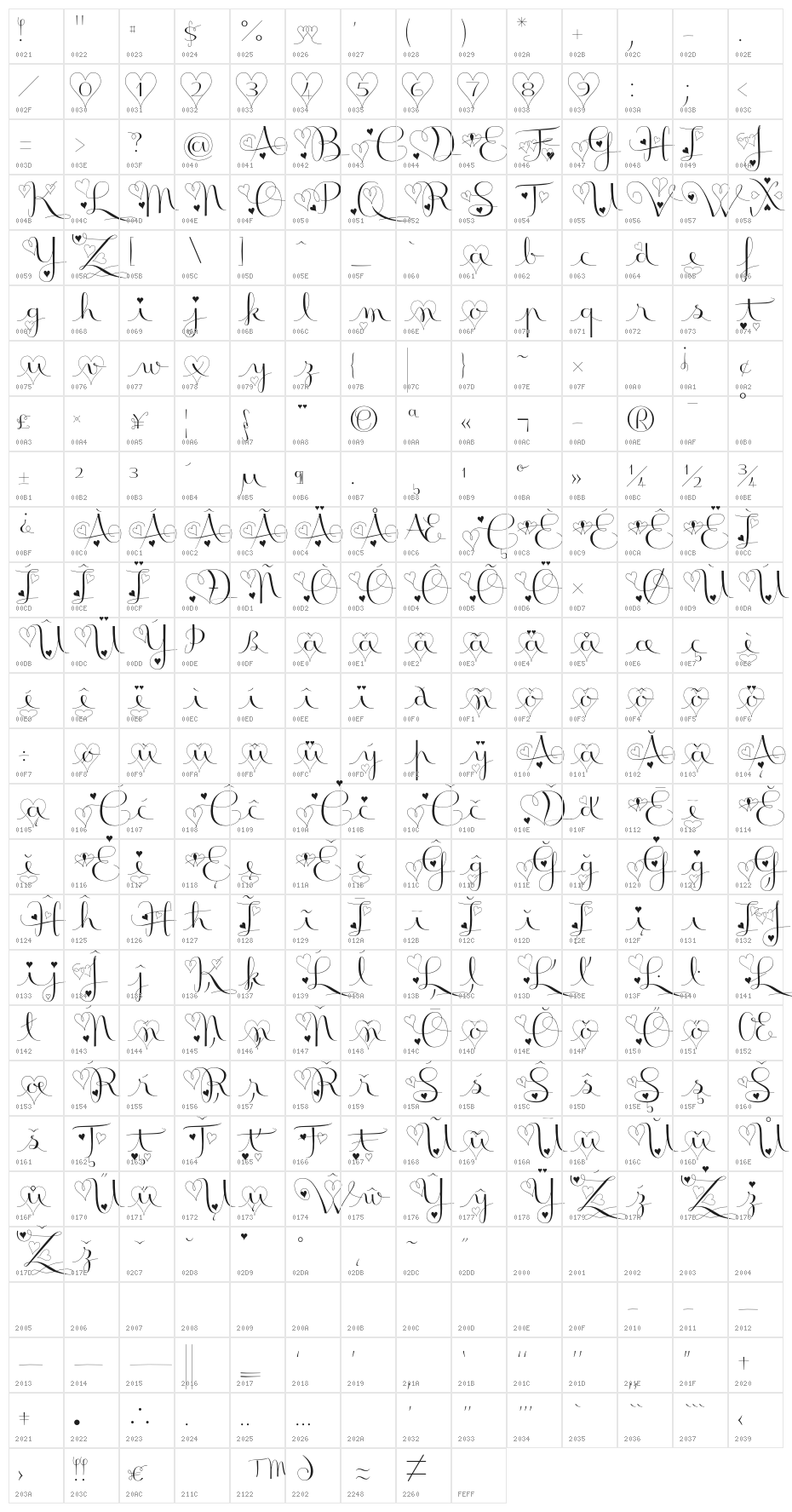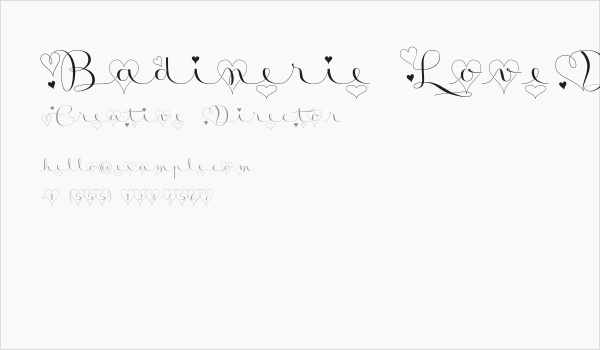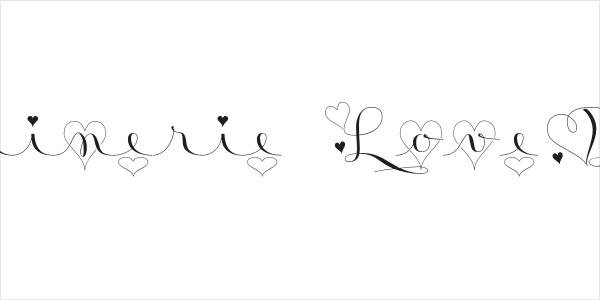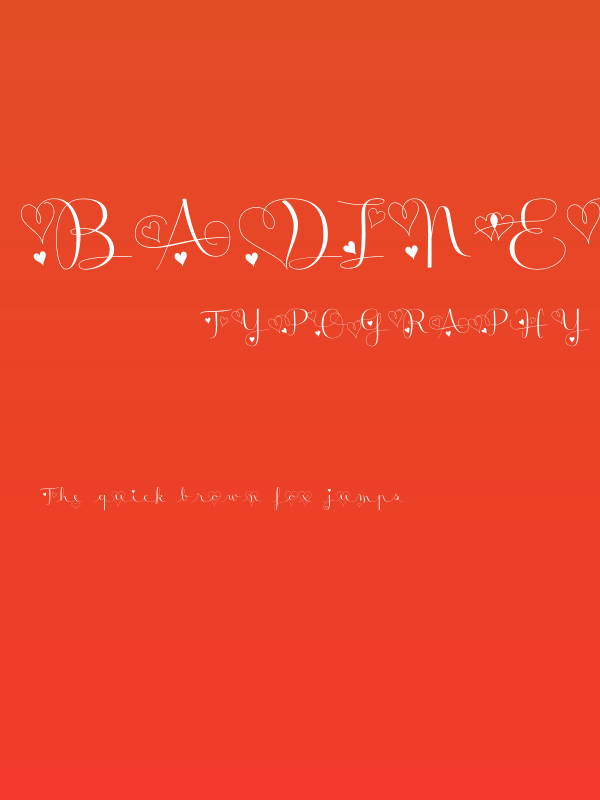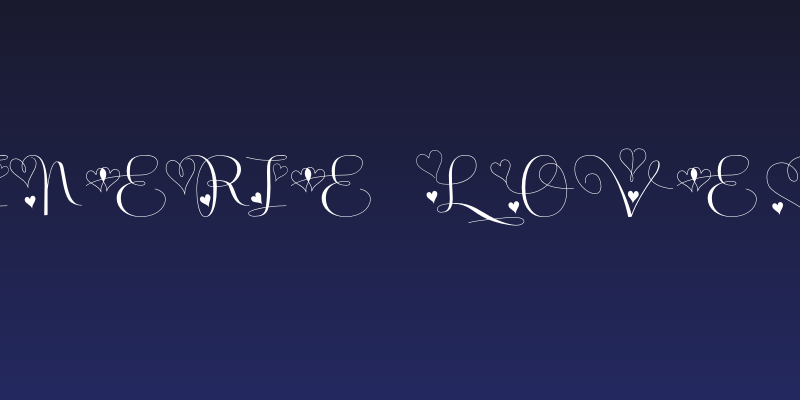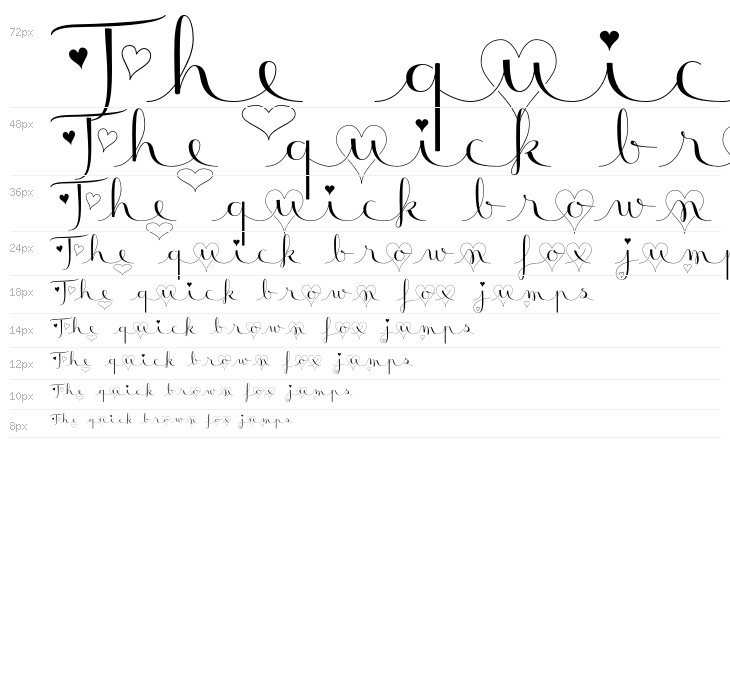
Badinerie LoveDemo Font
Badinerie LoveDemo Description
This font is a whimsical and romantic script that incorporates heart motifs into its design. Each letter is adorned with delicate heart shapes, either integrated into the strokes or as decorative elements. The uppercase letters are elegant and flowing, with a playful touch that makes them stand out. The lowercase letters maintain a consistent style, with smooth curves and a charming appearance. Numbers and special characters are also embellished with heart designs, adding to the font's cohesive and thematic look. This font is perfect for projects that require a touch of romance and creativity.
| Overall Style | Romantic, Whimsical |
| Use Case | Headlines, Invitations, Decorative text |
| Proposed Projects | Ideal for wedding invitations, Valentine's Day cards, love letters, and romantic branding. |